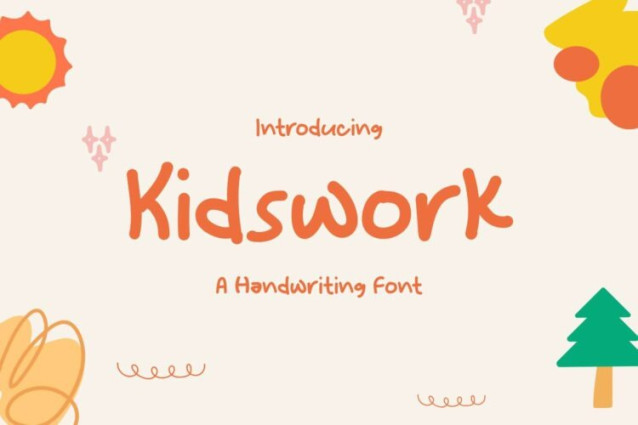
Kidswork Handwriting Font
Kidswork Handwriting Font is a simple and friendly handwritten font. Its natural and unique style makes it incredibly fitting to a large pool of designs. The only limit is your imagination!